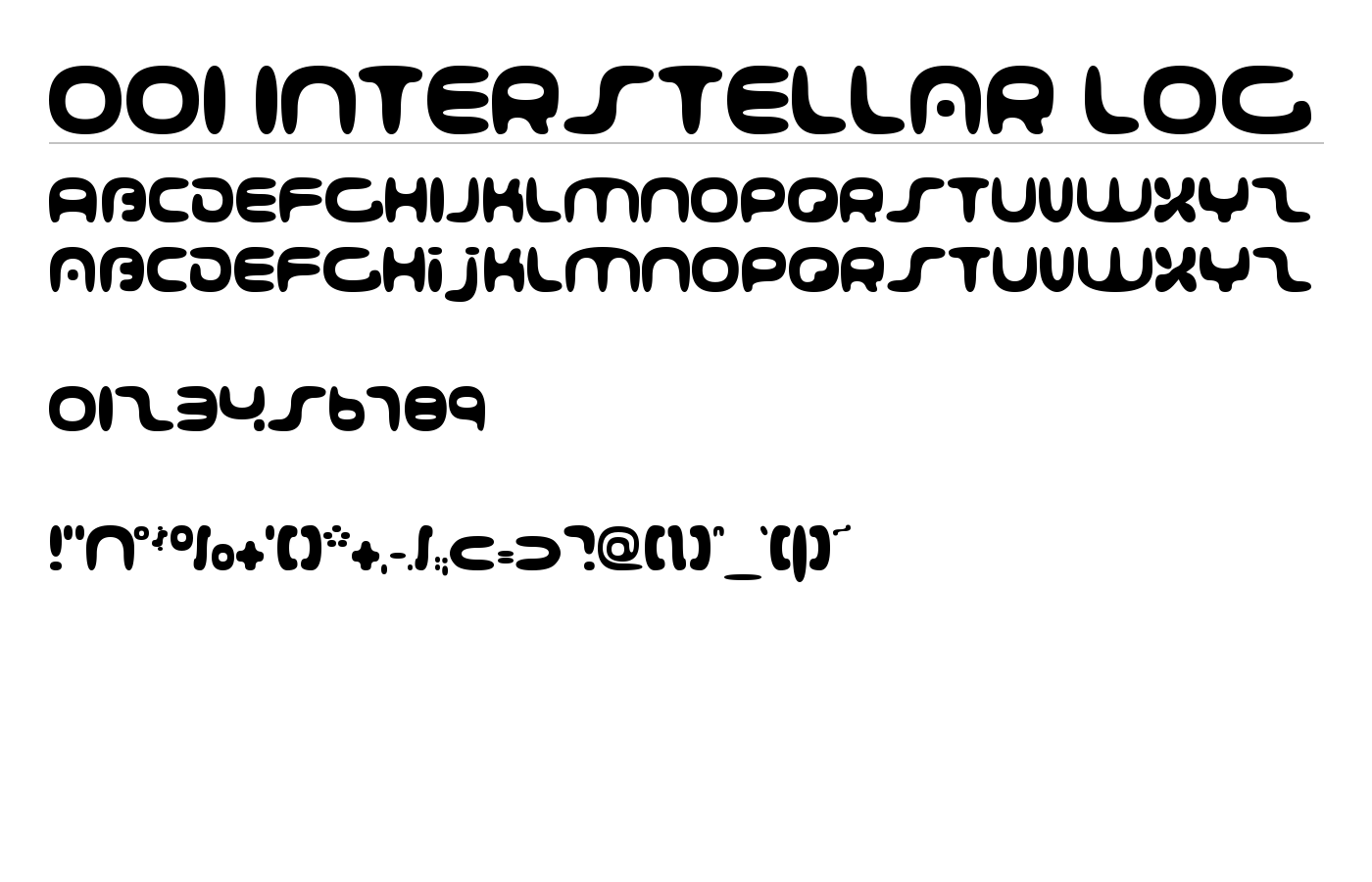
001 Interstellar Log is a playful, futuristic sans serif font with thick, rounded strokes and a unique geometric flair. Its wide letterforms and low contrast create an approachable yet otherworldly vibe, making it ideal for sci-fi themes, tech branding, or creative headlines seeking a bold, distinctive look. This font works well where a fun, space-inspired style is needed to stand out and capture attention.
001 Interstellar Log Font